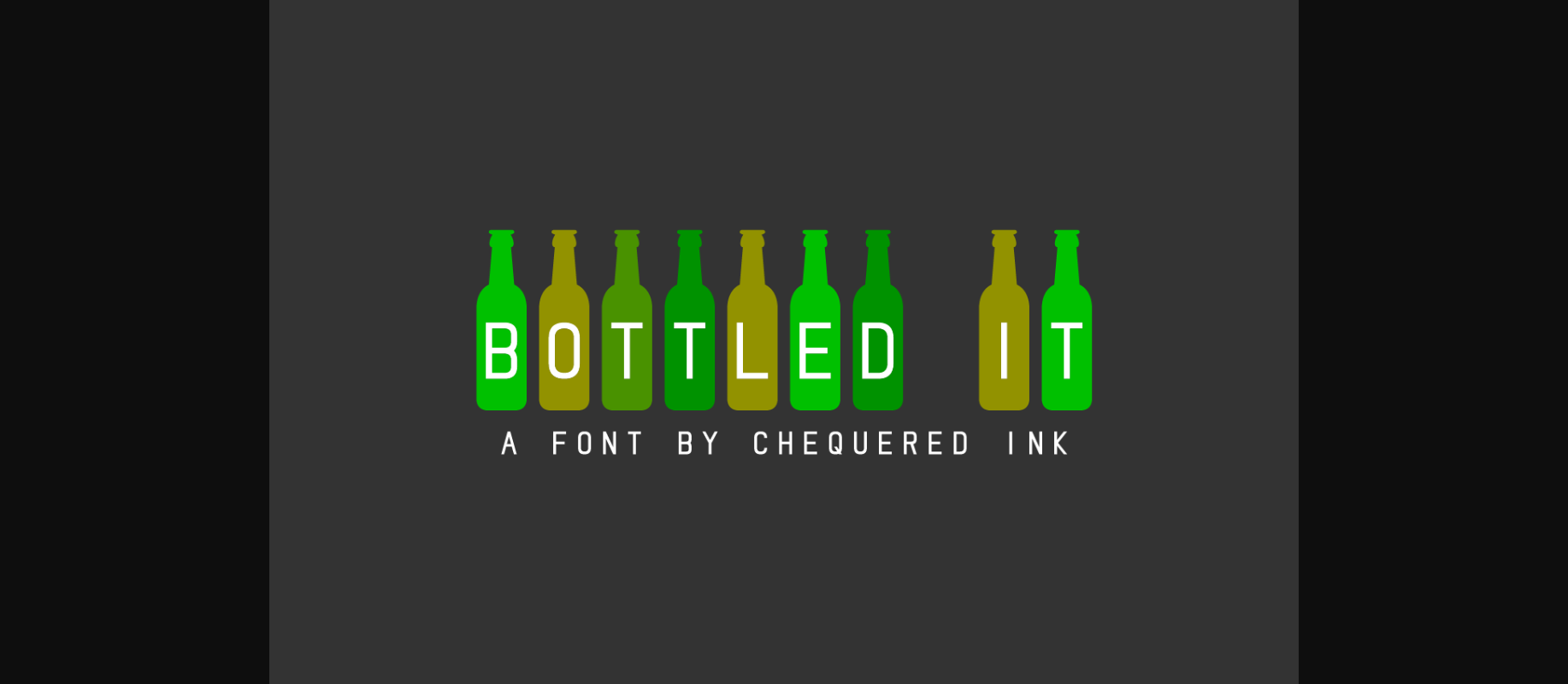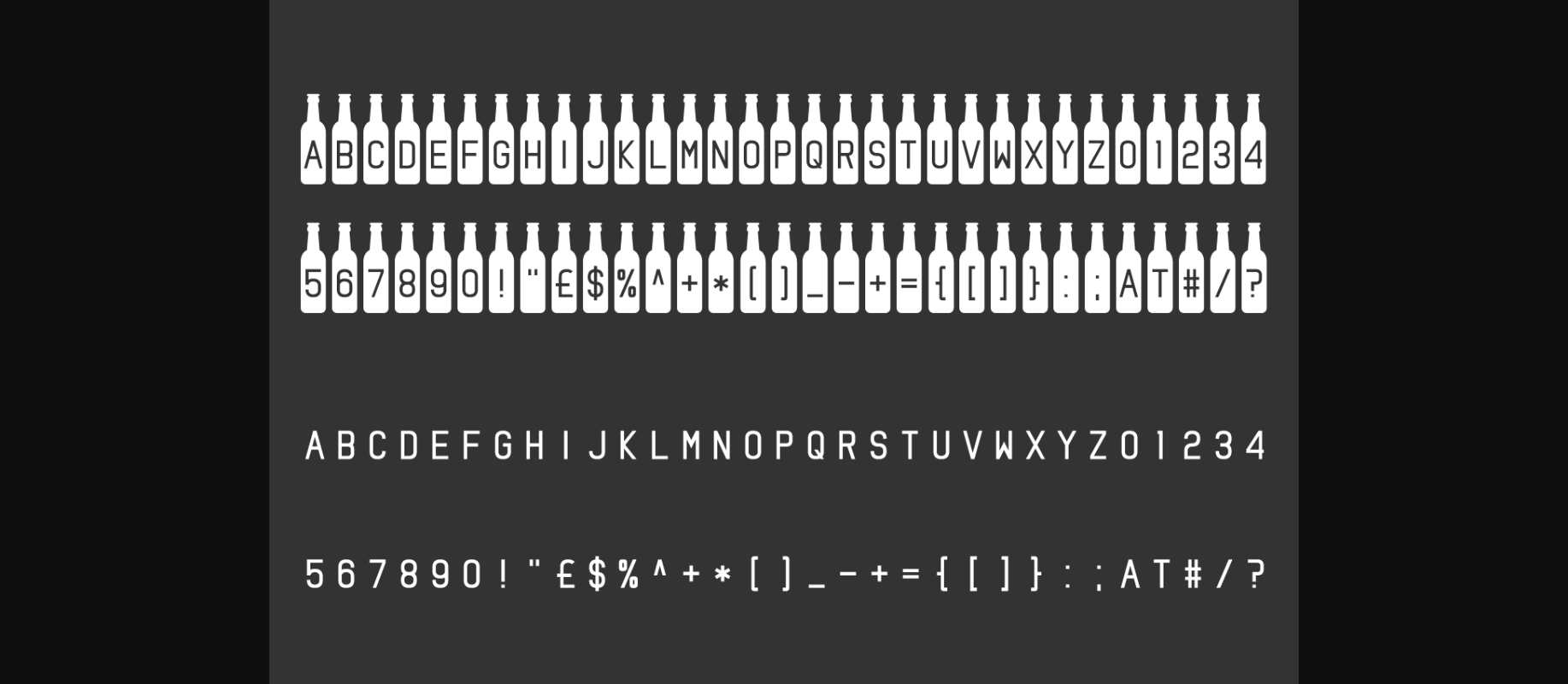
About Bottled It Font
Create your own promotional images for beer, wine, cola, lemonade or any other drink you can think of with this new bottle-based font!
Also perfect for New Years and Birthday cards.